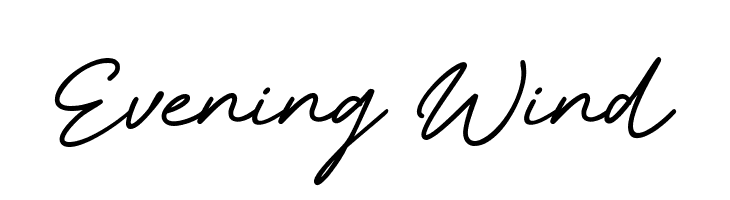
A glossy, modern font with a reflective, three-dimensional appearance.
A thin, elegant serif font with high contrast and classic styling.
A semi-bold, italic serif font with elegant and refined characteristics.
An elegant and flowing script font with interconnected letters and refined curves.
An elegant, cursive font with flowing, intricate characters and delicate swashes.
A flowing, elegant handwritten font with smooth, continuous strokes.
A flowing, cursive script font with elegant, connected characters.
A sophisticated and fluid script font with elegant, cursive strokes.
A sophisticated script font with elegant, flowing cursive letterforms.
A casual, handwritten font with elegant, flowing cursive style.